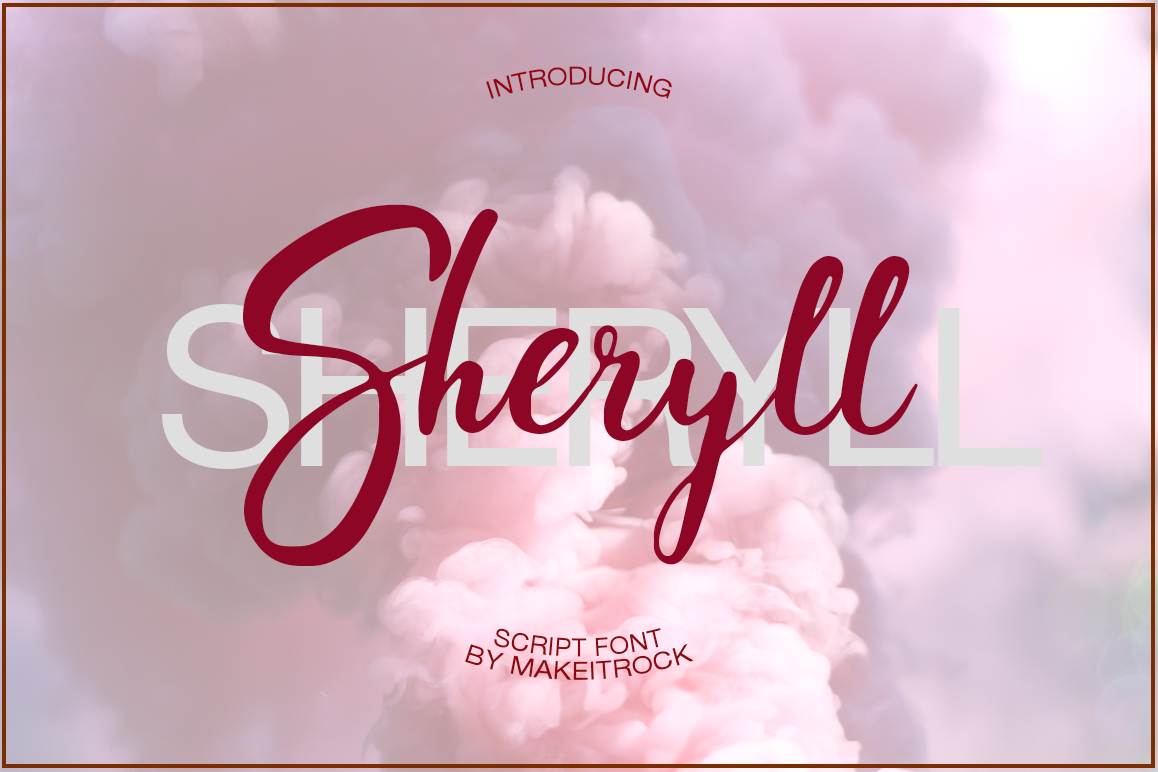
Sheryll
Sheryll*A new fresh handmade summer loving calligraphy font.Very suitable for greeting cards, branding materials, business cards, quotes, posters, and more!This font are perfect for wedding postcard. Or you can create perfect and unique design of your logo, blog, stationery, marketing, magazines and more :)